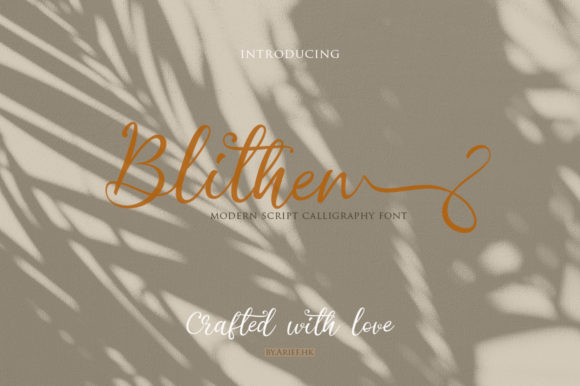
Unleash the Enchantment of Blithen: A Calligraphic Masterpiece for Creative Expression
Step into the world of Blithen, a script font family that captures the essence of romance and elegance. With its graceful lines and lively characters that dance along the baseline, Blithen exudes a casual yet refined charm that will elevate your designs to new heights.
Crafted with passion by the talented Arief.hk, Blithen is a versatile font that lends itself to a wide range of creative applications. Its enchanting nature makes it the perfect choice for logos, wedding invitations, and headings, adding a touch of sophistication and charm to any project.
Embrace the beauty of Blithen's versatility and let your imagination run wild. Create captivating t-shirts that speak volumes, design letterheads that command attention, or elevate your signage with a touch of grace. Its versatility shines through in labels, news, posters, and badges, making it an indispensable tool for designers seeking to make a lasting impression.
Blithen is more than just a font; it's a gateway to a world of creative possibilities. Its ability to transform ordinary designs into extraordinary masterpieces is truly remarkable. Whether you're a seasoned designer or just starting your creative journey, Blithen will accompany you every step of the way, helping you weave enchanting tales through the medium of design.
So, let Blithen be your muse, your creative companion, and your secret weapon in the world of design. Its captivating charm and boundless versatility will ignite your imagination and leave a lasting impression on all who encounter your creations.